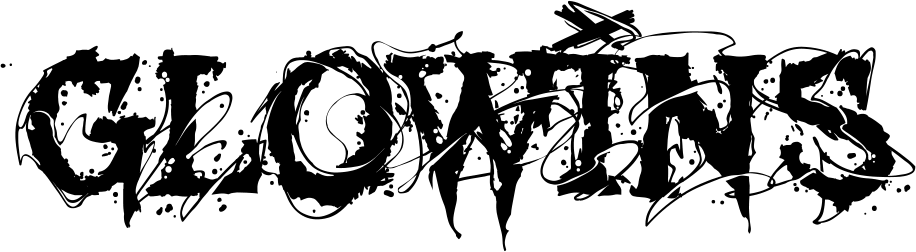
MCF Glowins Font
Designed byMister Chek
MCF Glowins font has crazy lines surrounding the characters in the vintage and serif font style. The good thing about this horror font is that even though it does not have numbers and small letters, big characters have unique lines.